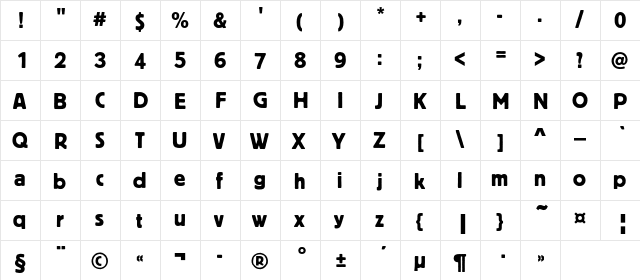
BlocC Regular
Design Context for BlocC Typeface
BlocC is a composed and adaptable typeface that performs quietly and consistently across a wide range of design contexts.
Pro Tip: Use BlocC in both headline and body roles to test its range before committing to a single application.